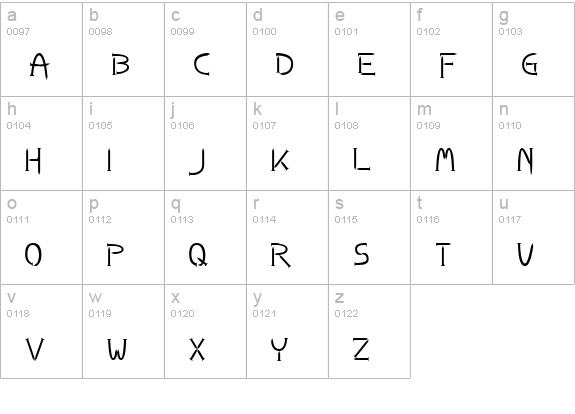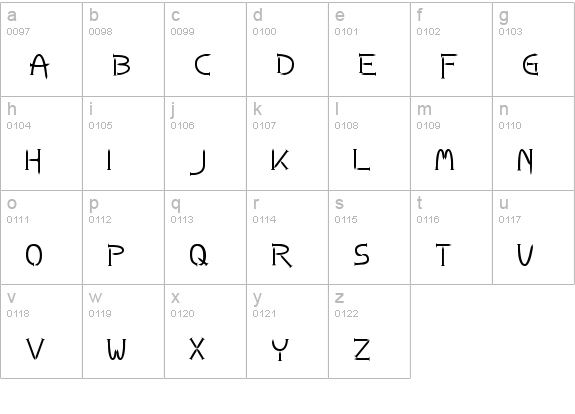
Nails Font Details
Nails font is a striking and bold typeface that exudes modernity and edginess. Its sharp angles and unique shapes make it perfect for making a bold statement in any design project. Whether you're creating a poster, logo, or social media graphic, Nails font is sure to grab attention and leave a lasting impression. The best part? Nails font is completely free to download at FontsMarket.com. You can easily add this eye-catching font to your collection without spending a dime. So why wait? Download Nails font today and take your designs to the next level with its powerful and dynamic presence.